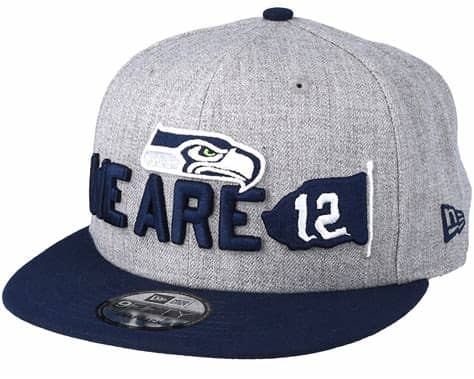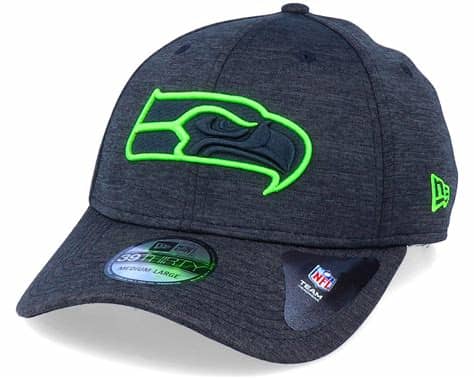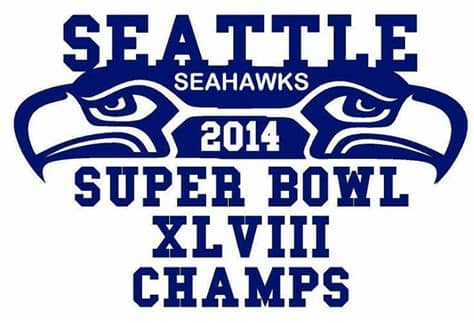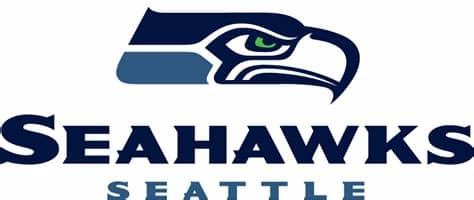
Seahawks Script Font / NFL Seattle Seahawks Flat Font Download : Hack, source code pro, more.. Also it would look great in logos, invitations, labels, heading and posters. They are organized into highly regular formal types. Iconic font aggregator, collection, & patcher: Arial is the most widely used font for both online and printed media. This font was designed by handwriting, and it has a modern and unique forms of calligraphy, the writing style is very natural.
Also it would look great in logos, invitations, labels, heading and posters.
Seahawks - Football Schedule MagnetCard by MagnetStreet ... from i.pinimg.com
Sans serif fonts came to print more than 200 years ago. Free script for this place, with many functions for example: And this font is well suited for titles, quotes, phrases, signatures and branding. Iconic font aggregator, collection, & patcher: Font awesome, material design icons, octicons, & more. Oraqle script also has impressive movement with. Best free script fonts handwritten fonts font free calligraphy fonts fonts for mac all fonts bohemian font free typeface creative fonts. Seahawks font search on ffonts.net like nfl seattle seahawks flat, nfl seattle seahawks pattern.
Introducing oraqle script, a brush lettering font from 50fox that features bold strokes and authentic brush texture that will make your design stand out.
Arial is one of the safest web fonts, and it is available on all major operating systems. The following unicode fonts implement the armenian character set. Iconic font aggregator, collection, & patcher. ✓ click to find the best 2 free fonts in the seahawks style. Browse by alphabetical listing, by style, by author or by popularity. Recording artist jnl font pair (c) jeff levine 2xotf. 3,600+ icons, 50+ patched fonts: Arial is also the default font in google docs. Also it would look great in logos, invitations, labels, heading and posters. Download 10,000 fonts with one click for $19.95. Полное название шрифта acquest script is a trademark of ivan zeifert works. Create your own customized patched fonts. What is the font used under the seahawks logo?